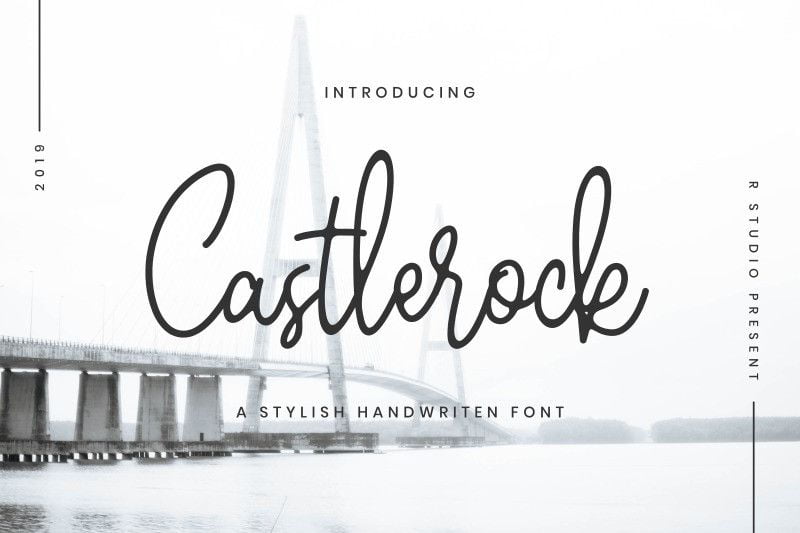
Castlerock Font
Castlerock Font a work that is purely a result of handwriting, has a natural characteristic. this is perfect for invitations, signatures, blogs, social media, business cards, product brands.
Castlerock has Stylistic standard, Stylistic Initial, Stylistic Teminal and ligatures. and includes uppercase and lowercase letters, numbers and punctuation marks.